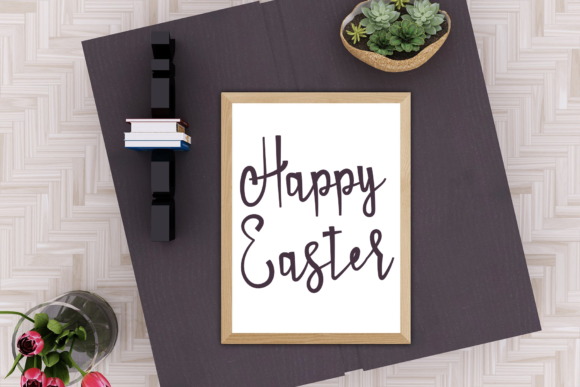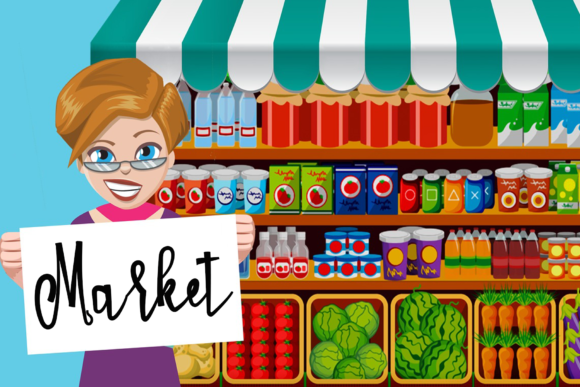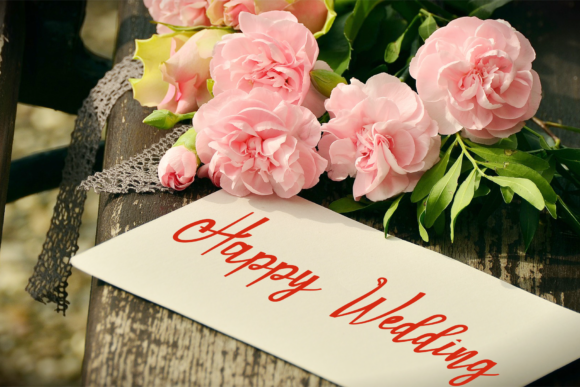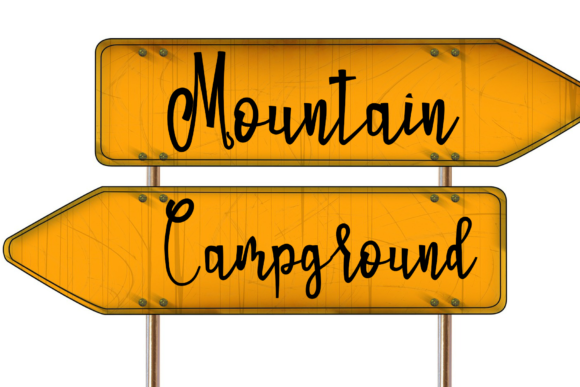
Birthdays Font
About Birthdays Font
Birthdays is a unique and dainty handwritten font that adds a touch of charm and playfulness to any design. Its distinctive style makes it perfect for a variety of purposes, allowing you to create eye-catching logos, elegant wedding invitations, engaging headings, trendy t-shirts, professional letterhead, attention-grabbing signage, captivating labels, informative news articles, striking posters, and memorable badges.
One of the standout features of Birthdays is its dainty and delicate letterforms. The thin and graceful strokes of the font give it an elegant and refined appearance. Each character is meticulously crafted, capturing the essence of hand-lettering and adding a personal touch to your designs. Whether used as the main focal point or as a decorative element, Birthdays brings a sense of uniqueness and individuality to your projects.
The versatility of Birthdays allows it to adapt to various design styles and contexts. Its whimsical and playful nature makes it well-suited for celebratory themes, such as birthdays, parties, and special occasions. It adds a sense of joy and festivity to your designs, making them more engaging and inviting.
In addition to its decorative qualities, Birthdays also offers readability and legibility. The carefully designed letterforms ensure that your message is conveyed clearly and effectively, regardless of the medium or size of the text. This makes Birthdays suitable for both print and digital applications, allowing you to create cohesive and professional designs across different platforms.
Birthdays also provides versatility through its wide range of possible applications. It can be used in logos to create a memorable and distinctive brand identity. The playful and unique nature of the font helps your logo stand out and leaves a lasting impression on your audience. Additionally, Birthdays can be applied to wedding invitations, capturing the romantic and intimate atmosphere of the special day. Its dainty and elegant style adds a touch of sophistication to the invitations, setting the tone for a memorable celebration.
Headings, t-shirts, letterhead, signage, labels, news articles, posters, and badges all benefit from the unique charm of Birthdays. Whether you want to create attention-grabbing headlines, trendy apparel designs, professional business stationery, informative signage, eye-catching labels, engaging news articles, impactful posters, or memorable badges, Birthdays brings a touch of creativity and personalization to these projects.
In conclusion, Birthdays is a unique and dainty handwritten font that adds charm, playfulness, and a personal touch to a wide range of designs. Its versatility allows it to be used in various applications, from logos and wedding invitations to headings, t-shirts, letterhead, signage, labels, news articles, posters, and badges. Embrace the distinctive style of Birthdays and let your designs stand out with its whimsical and elegant appeal.